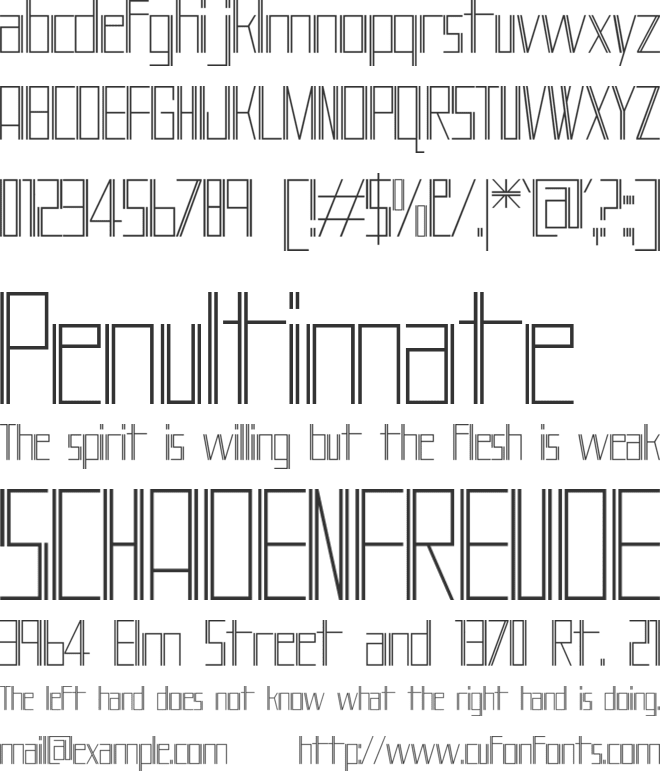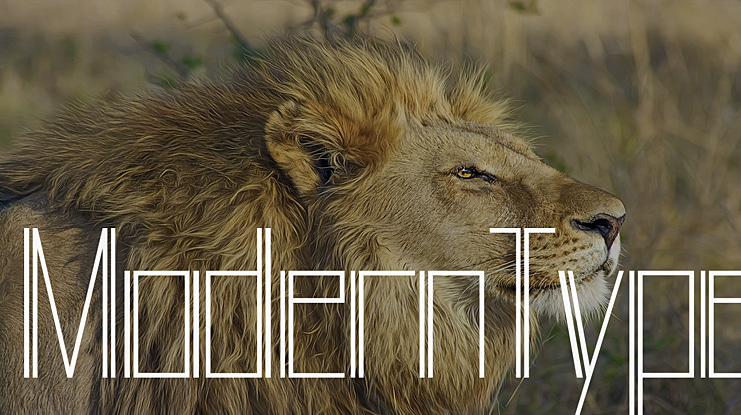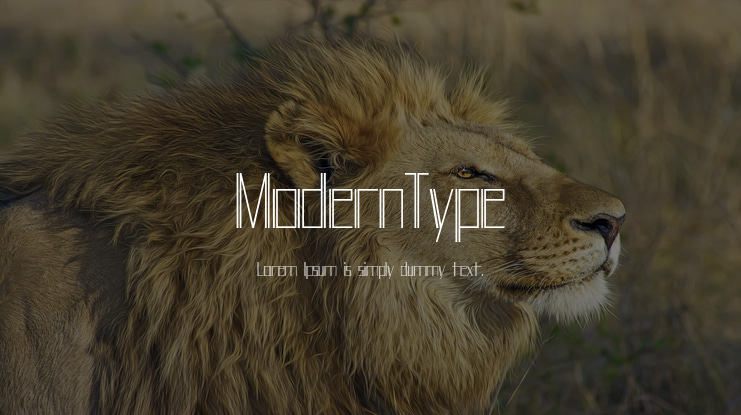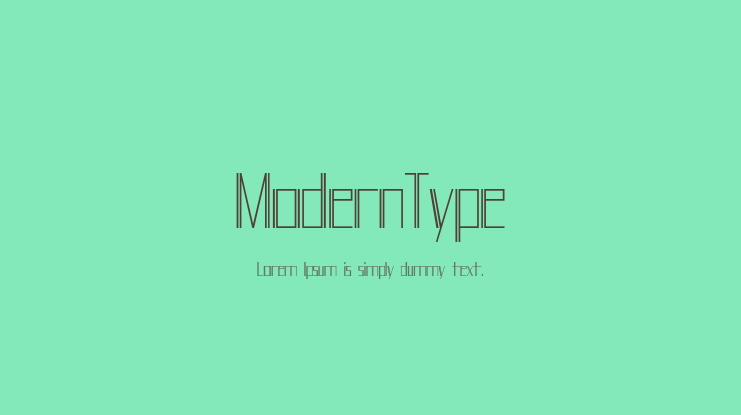
ModernType Font Family
P.A.Vannucci
From the sparkling custom world of racing cars, a True Type font in regular and bold/italic sizes, to give a touch of originality to your graphic creations.
Dallo sfavillante mondo custom delle auto da corsa, un font True Type nelle misure regular e bold/italic, per dare un tocco di originalità alle vostre creazioni grafiche.